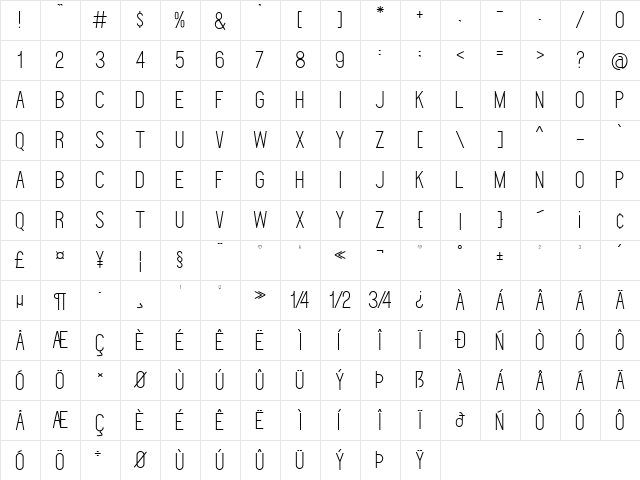
Deflagrate Light DEMO Regular
Design Context for Deflagrate Light DEMO Typeface
Deflagrate Light DEMO takes a measured approach to typography — its balanced proportions and neutral character make it a reliable workhorse for both digital and print work. Its slender proportions lend an understated elegance to any composition.
Pro Tip: Pair Deflagrate Light DEMO with a font of contrasting weight or personality to build a more expressive typographic hierarchy.